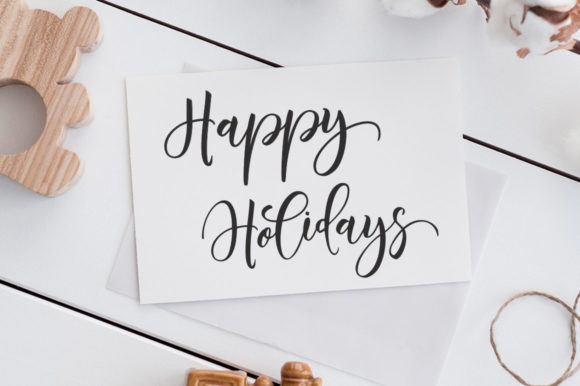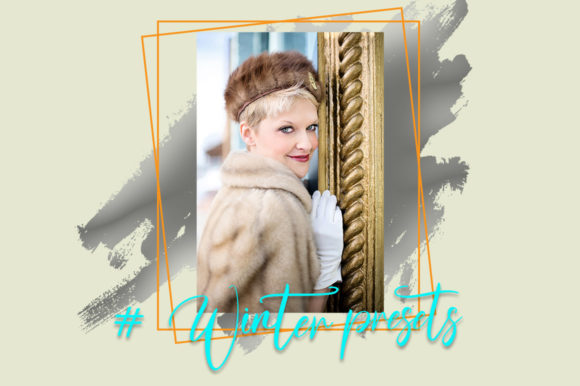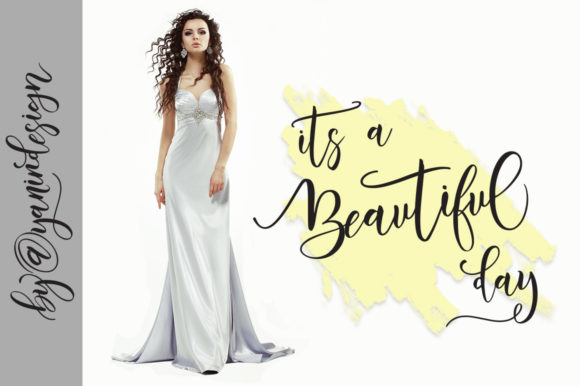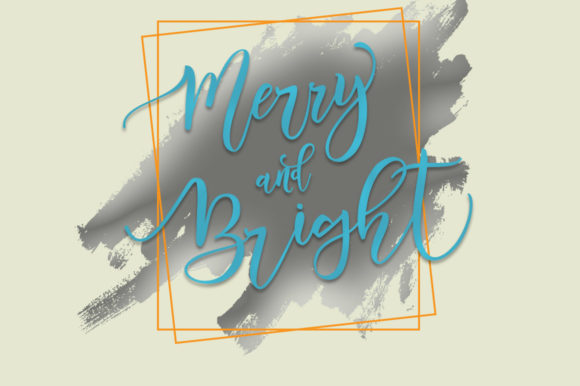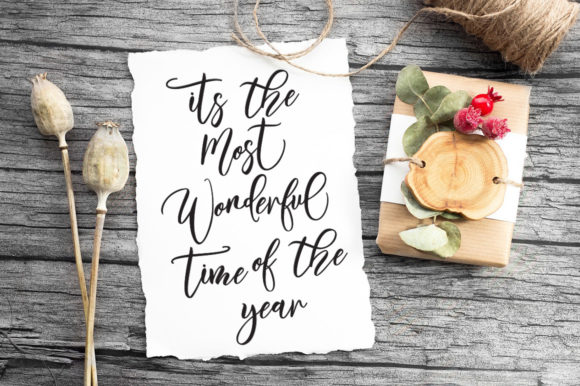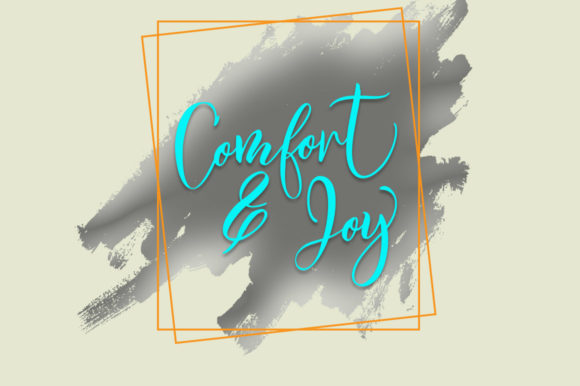
Introduction to Moisture Ink Font
Have you ever been working on a creative project, pouring your heart and soul into it, and then, BAM! The right font comes along and takes it to the next level? That’s exactly what happened to me when I discovered the stunning Moisture Ink Font. Its beautifully handcrafted letters and flowing feel instantly captivated me, and I knew I had to share it with the world.
As a designer, I can attest to the value of having high-quality fonts in your arsenal. The Moisture Ink Font is a game-changer, offering unique uppercase and lowercase letters, ligatures, and alternates that will elevate any design project. Whether you’re working on a personal project or a client’s design, this gorgeous script is sure to impress.
Key Features of Moisture Ink Font
- High-quality font with a unique, hand-painted aesthetic, perfect for creative projects that require a touch of elegance.
- Moisture Ink Font features a distinctive, watercolor-inspired style that adds a touch of whimsy and sophistication to any design.
- Perfect for use in a variety of creative projects, including branding, packaging, and editorial design.
Honest Review: Moisture Ink Font
I recently stumbled upon the Moisture Ink Font, and I must say it’s a great addition to any designer’s toolkit. As a creative project, it’s perfect for those looking to add a touch of elegance to their designs.
One of the standout features of this font is its high quality and transparent background, making it a great design resource for anyone working on a project with a lot of background elements.
- ✨ Beautiful, elegant design that’s perfect for creative projects
- ✨ High quality, crisp lines and clear typography
- ✨ Transparent background makes it easy to layer with other design elements
- ⚠️ Limited font weights and styles available (only 4 weights)
- ⚠️ Not ideal for bold or dramatic typography (due to its elegant design)
Overall, I’m impressed with the Moisture Ink Font. It’s a great addition to any designer’s toolkit, and its high quality and transparent background make it a valuable design resource. While it may have some limitations, it’s definitely worth checking out for any creative project that requires elegant typography.
Use the Moisture Ink Font on a transparent background to create a beautiful, eye-catching design. Experiment with different font sizes and colors to match your creative project’s style. This font is a great design resource for anyone looking to add a touch of elegance to their work.
The Moisture Ink Font is perfect for various design projects, including business cards, brochures, and social media graphics. Its high-quality design makes it suitable for use in both personal and professional projects.